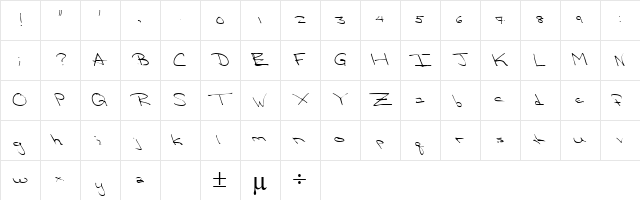
Victorias Regular
Design Context for Victorias Typeface
Victorias takes a measured approach to typography — its balanced proportions and neutral character make it a reliable workhorse for both digital and print work.